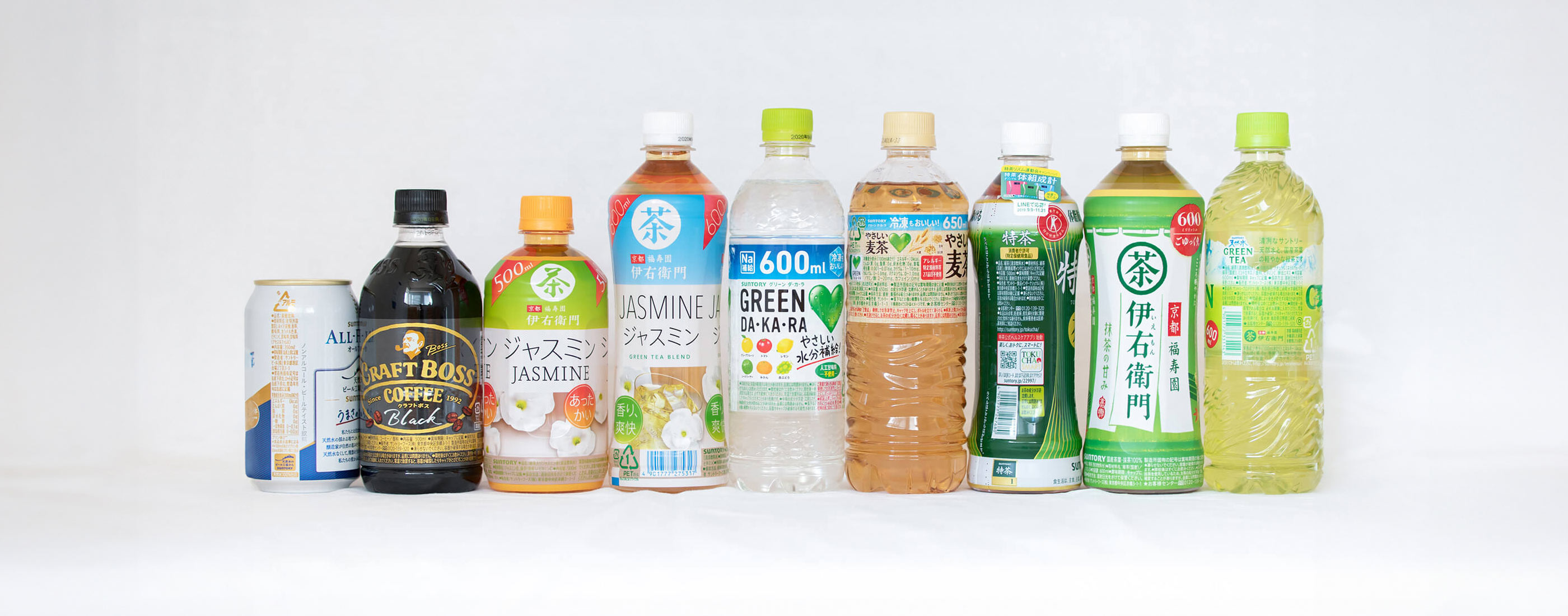
Font for Display Typesetting
Best known for its carbonated and alcoholic drinks, Suntory provides various products to a wide range of fields, including health supplements and cosmetics. The Design Department at Suntory Communications Ltd. is involved in extensive commercialization activities from the development of product concepts to package design and branding.
It is required to display nutritional composition and raw materials on the containers of carbonated and alcoholic drinks. There are a great number of cautionary descriptions in food for specified health use (designated health food), functional drinks, freezable drinks, etc. Due to legal changes and similar regulations, there is an increasing tendency toward displaying content. On the other hand, from the perspective of environmental consideration, there has been a trend towards changing full-shrink labels that cover the whole bottle to roll labels with a shorter width. In the present situation, the composition display space is getting smaller.
Type Project provided a customized font, AXIS SUNTORY TP, as a font for display typesetting for raw materials and cautionary descriptions. This font for display typesetting was designed to describe more information in a narrow space, as well as to maintain readability. AXIS SUNTORY TP satisfied practical requests, including “do not let perfect circles, stars, etc. that are used to end the sentence get buried in the text,” “highlight the caution display used in alcoholic drinks by making its general appearance different from the other parts,” and “adjust hyphenation to improve readability.” Currently, AXIS SUNTORY TP is used in many new products.
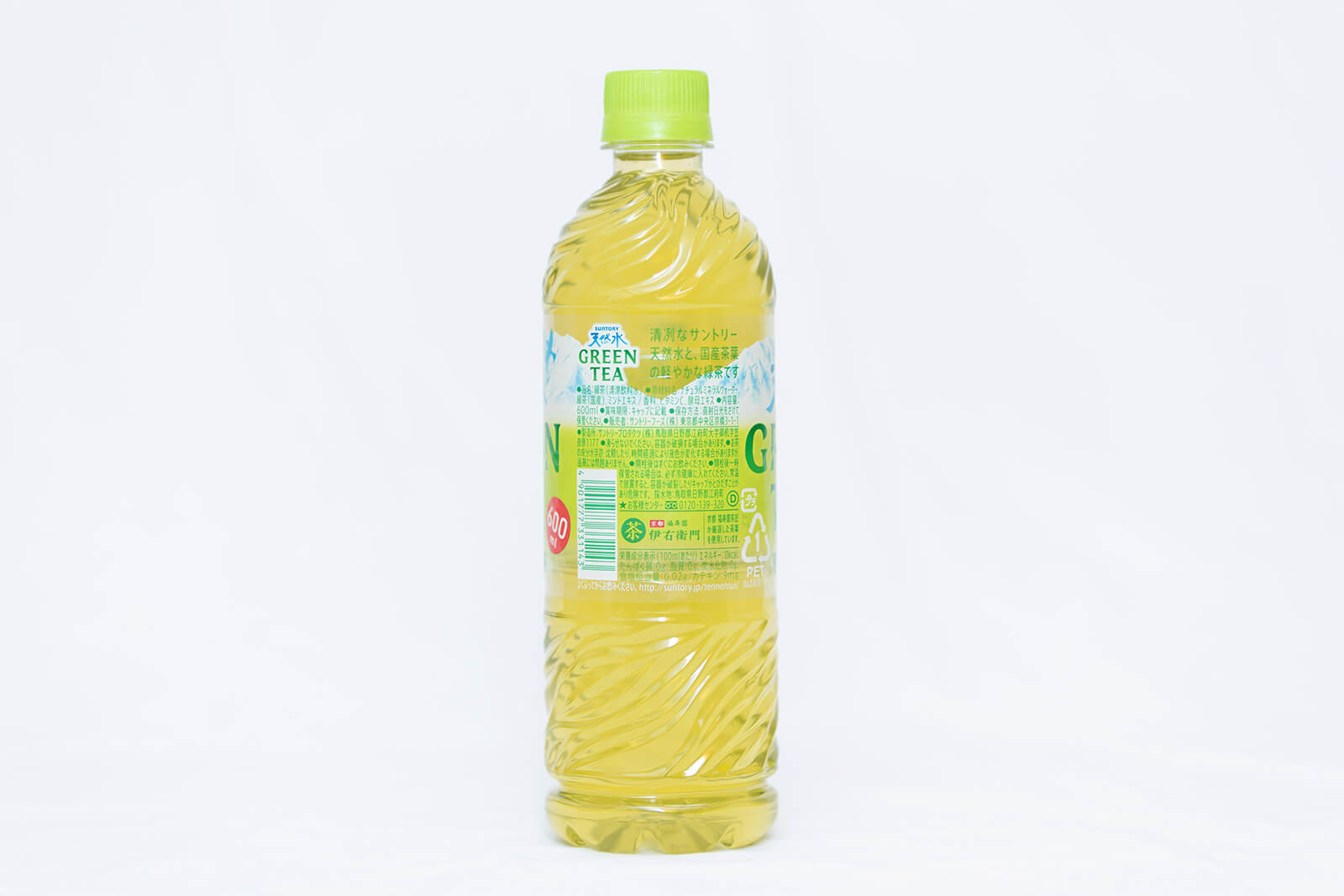
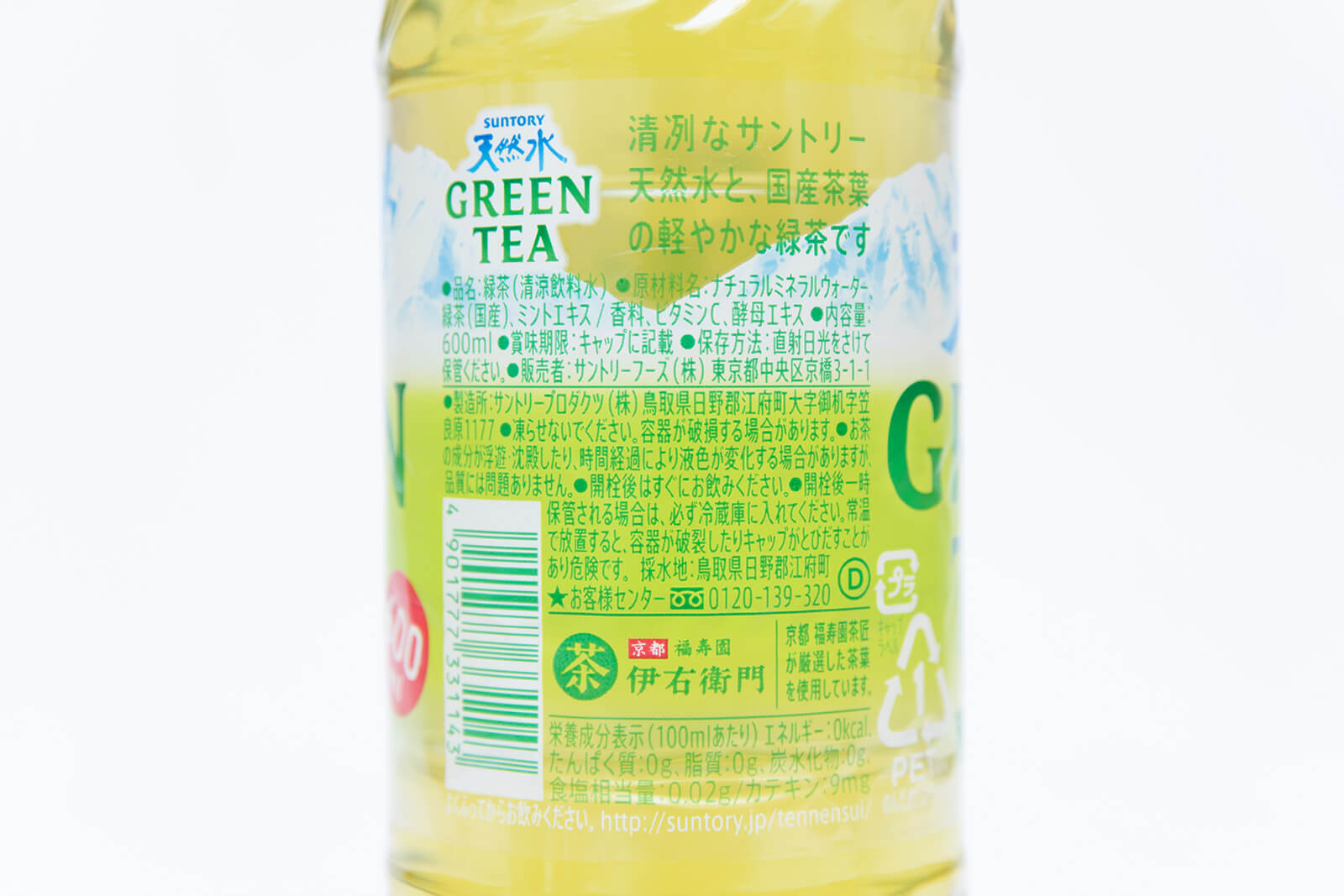
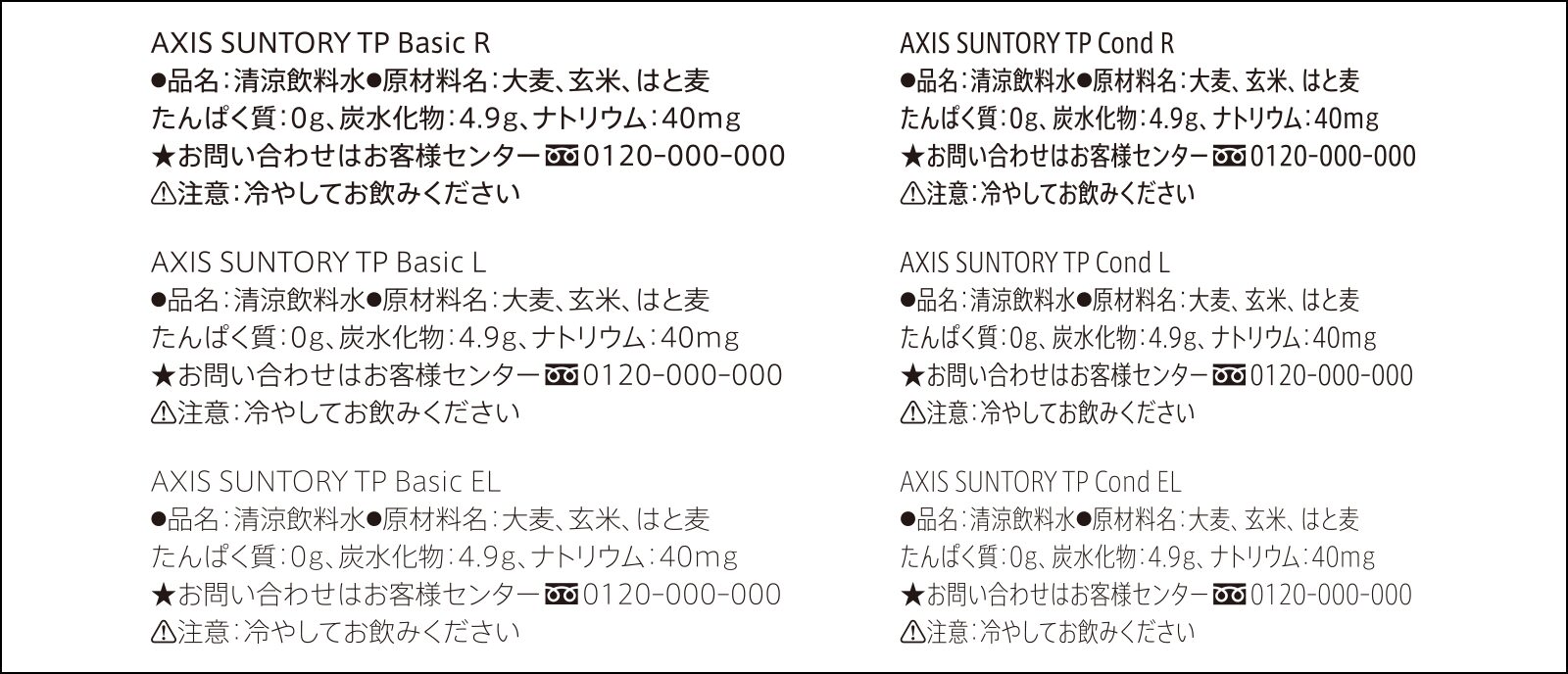
“There are conditions that must be cleared for the display part, such as composition, etc., due to laws and conventions in the industry. Making display typesetting compact and easy to read is considered to be directly connected to the strength of products in stores. By implementing AXIS SUNTORY TP, our work efficiency has sharply improved,” says Design Director Kei Nishikawa of the Design Department at Suntory Communications Ltd.
Prior to the implementation of AXIS SUNTORY TP, Suntory had been using another customized font for display typesetting for 10 years or so. However, several problems became clear using the font for such a long time. The font at the time was not used in its original form. Instead, it was designed on the premise that the font would be condensed by 60% or 80% before use for the vertical and horizontal ratio to be best seen.
“In display typesetting, the process begins by inputting characters as they are, making line breaks at appropriate locations without entering information on the number of characters on a line. In the previous font, extra effort was required to change the character width after inputting characters. Furthermore, processes to return the symbol parts, such as dots, to 100%, and make Latin characters easier to read, etc. were added. Clearly understanding some points of difficulty in use and points of adjustment, I proposed a customized font based on the AXIS Font that can solve various problems at once.”
Considering the characters used for display typesetting as similar to infrastructure, operation regarding the in-house use of AXIS SUNTORY TP conforms to the manual, instead of formulation of rules.
“The entire Design Department naturally made the shift to AXIS SUNTORY TP, meaning that the font can be used satisfactorily without stress. It is certain that designers are used to using the conventional font. However, the fact that many designers went ahead and made the shift to AXIS SUNTORY TP seems to indicate that they understand its long-term advantages above current work efficiency. After all, the effect of having fast and beautiful typesetting is significant. Work has become 30% faster. We can perform display typesetting at a level where completion time can be estimated just on the basis of inserting text.”
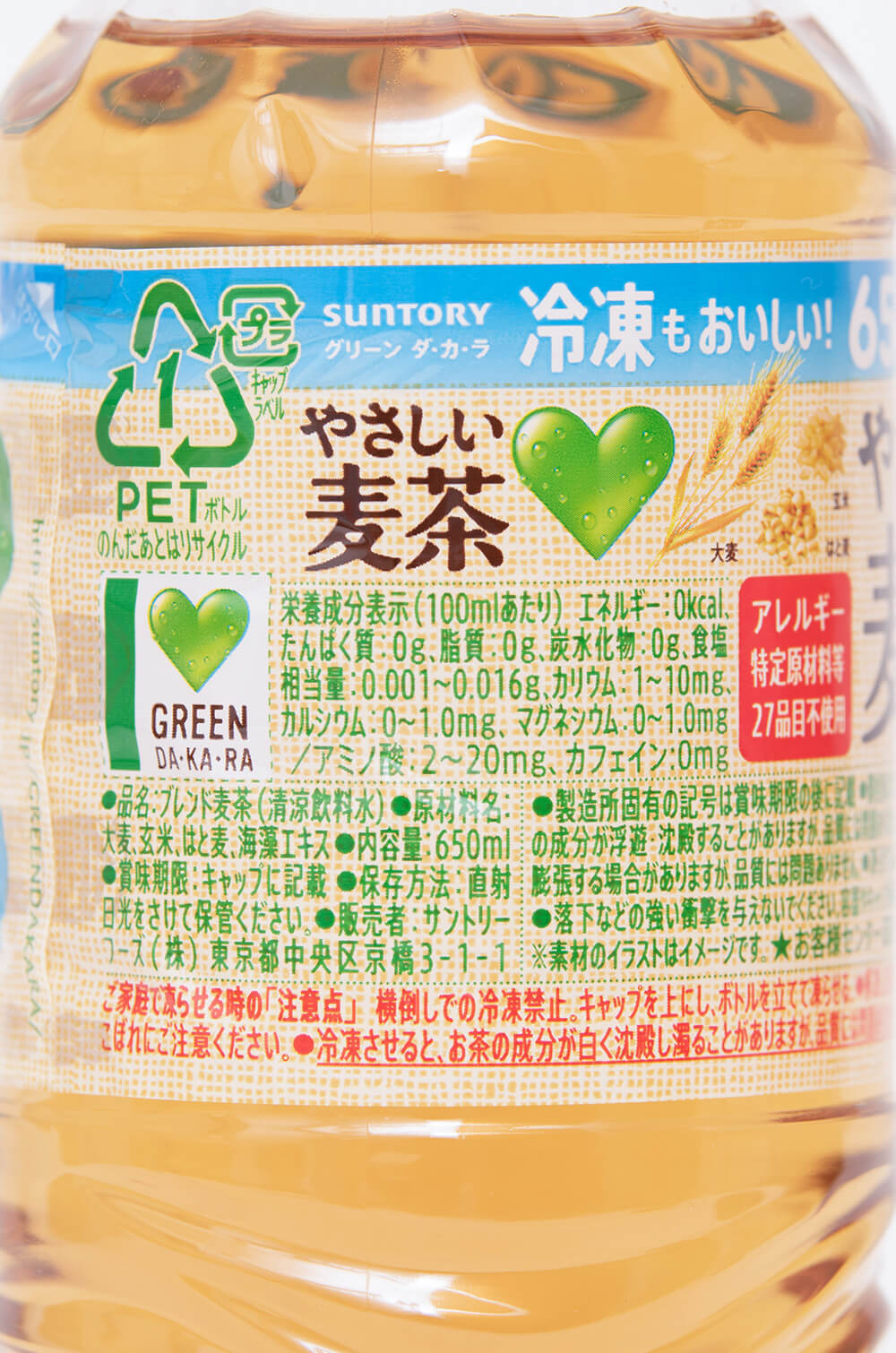
At Suntory, the AXIS Font is utilized in designing parts aside from the display area. Depending on the content of information transmitted, AXIS Round 50 and 100 are used where appropriate. For example, the expression of “kindness” that matches the theme of “making parents and children smile” is required in addition to an image of functionality and reliability in the functional drink GREEN DA・KA・RA.
“The fonts are used depending on the purpose of use, such as the AXIS Font for information to be transmitted clearly, AXIS Round 50 for information to be transmitted gently, and AXIS Round 100 for parts that are intended to be displayed with brightness. The atmosphere changes completely by simply rounding the corners. In GREEN DA・KA・RA, the AXIS Font is mainly used as the basic font. Even with the AXIS Font changed to AXIS Round 50 and Round 100 to adjust the atmosphere, the typesetting width does not change – it was a new sensation.”
Also, the AXIS Font and TP Sky are used to distinguish iced from hot drinks in the “Jasmine” Iemon series.
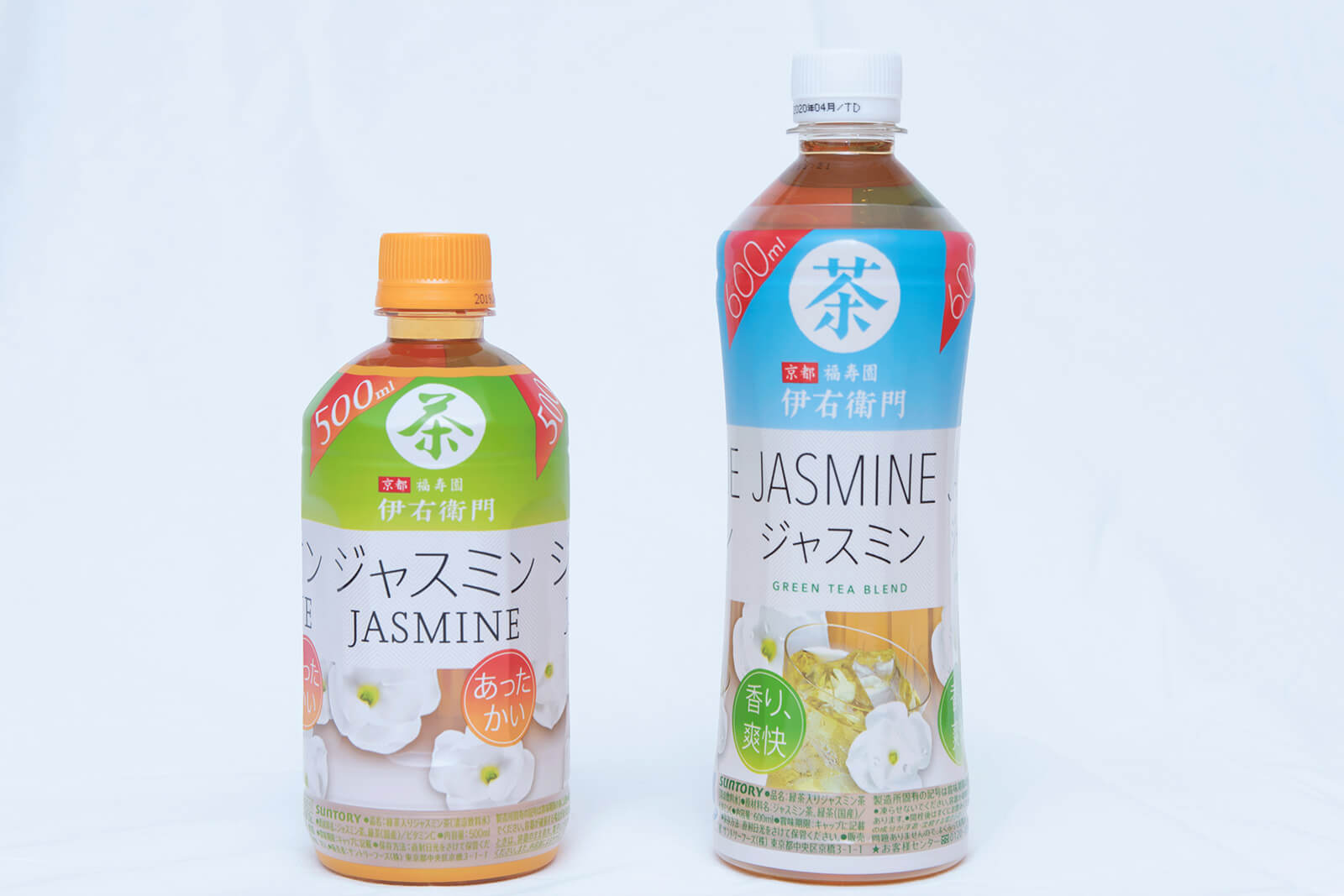
“Customers do not purchase the products to treasure the package design. As we want to enrich customers’ lives to as great a degree as possible through our products, we believe that it is important for the package design to adapt to their lives rather than to provide an impact. AXIS SUNTORY TP can adapt to the product design in an instant. The expression of ‘unsung hero’ is the best match for it. It is now an important tool that cannot let go.”